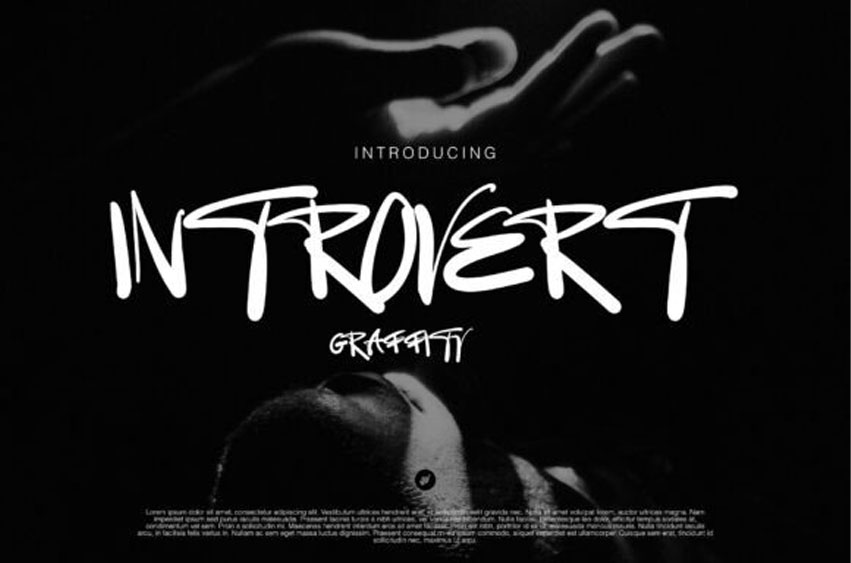
Introvert Graffity Font
Introvert Graffity Font is a bold and expressive graffiti-style font inspired by the raw energy of street art. With dynamic, hand-drawn letterforms that echo the look of spray-painted text, this typeface captures the essence of freedom, rebellion, and creativity. Its striking design brings an urban edge to any project, making it ideal for work that needs to stand out with attitude and flair.
This font is perfect for a variety of uses—from music posters for hip-hop or underground events, to streetwear brand logos that embrace skate or urban culture. It’s also a powerful choice for album covers, especially for genres like rap, punk, or reggae that thrive on bold, anti-mainstream aesthetics. Whether you’re creating t-shirts, jackets, or accessories with a rebellious twist, Introvert Graffity adds personality and impact.
Additionally, it’s great for digital content and social media designs that demand attention, as well as digital murals and urban-inspired illustrations that aim to leave a bold visual impression. Wherever it’s used, Introvert Graffity brings an unmistakable street-style voice to your creative work.